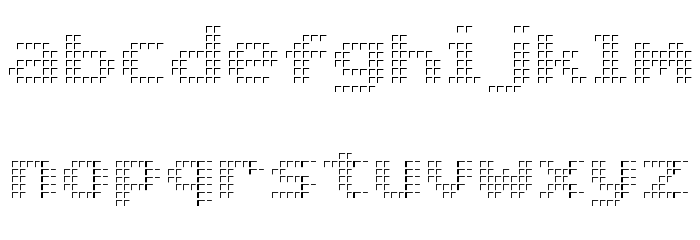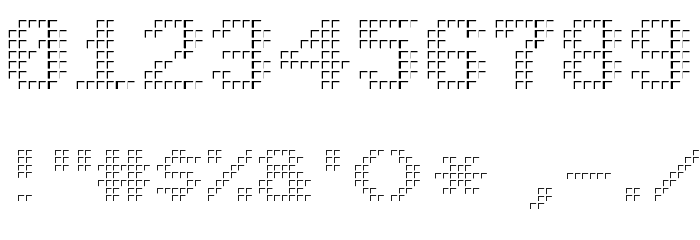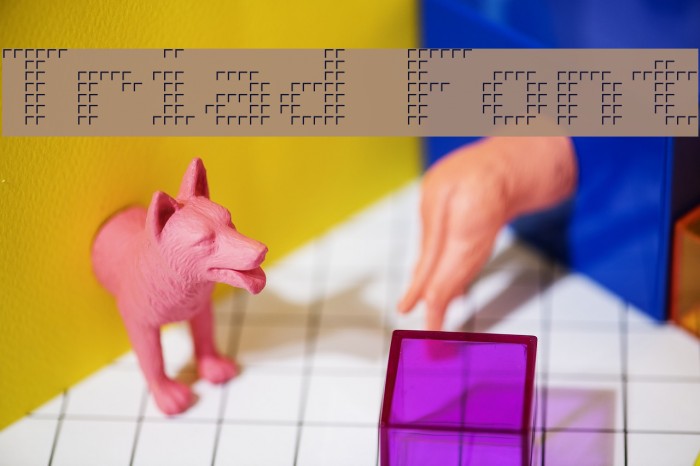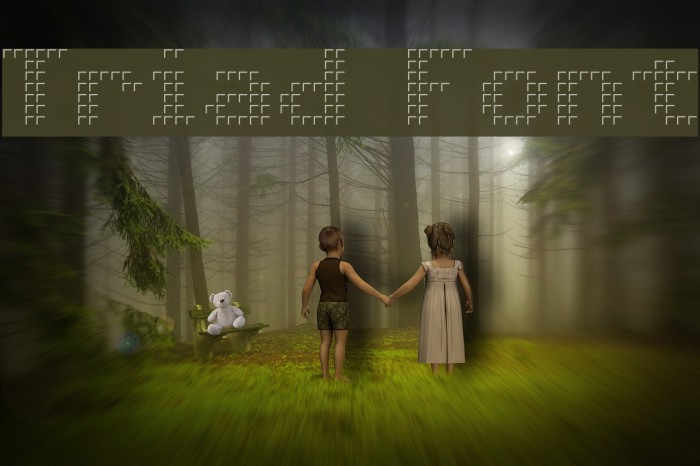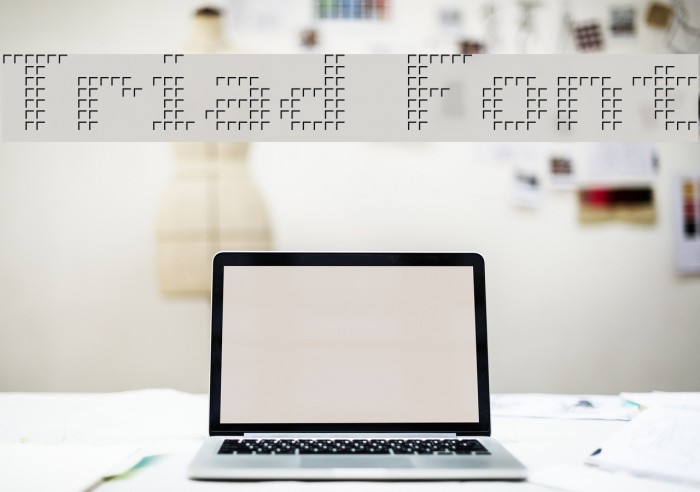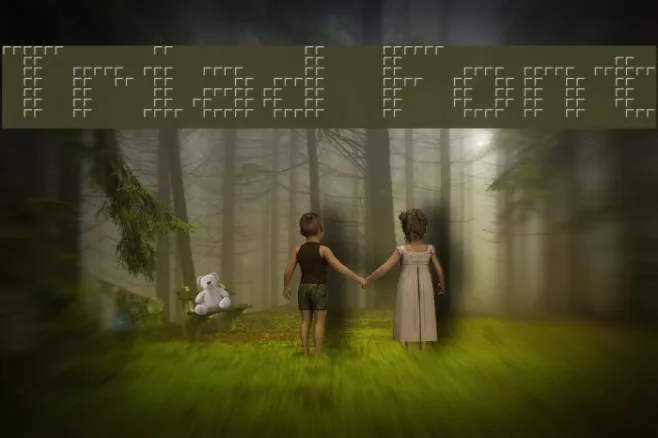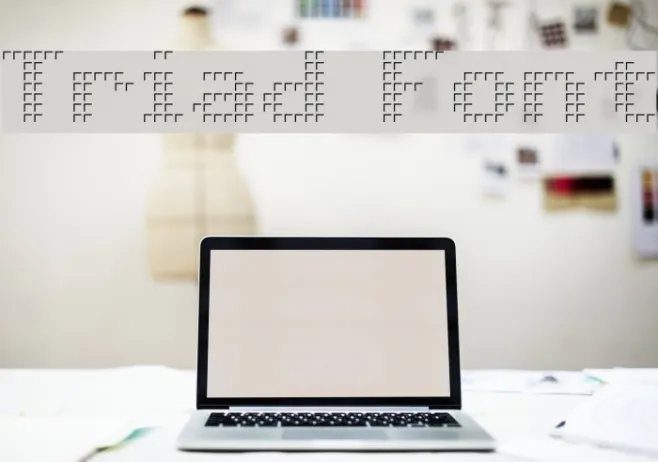
Triad Font
This font is a unique and creative display typeface that uses a pattern of slashes and underscores to form each character. The design is reminiscent of ASCII art, giving it a digital and retro aesthetic. Each letter and number is constructed with a consistent pattern, creating a cohesive look across the entire set. The characters are evenly spaced, and the overall style is both playful and technical, making it suitable for projects that require a distinctive and unconventional appearance.
A retro, ASCII art-inspired display font with a digital aesthetic.
- Proposed Projects: Ideal for digital art projects, retro-themed designs, tech-related branding, and creative posters.
- Overall Style: Retro, Digital
- Use Case: Logos, Posters, Creative Displays